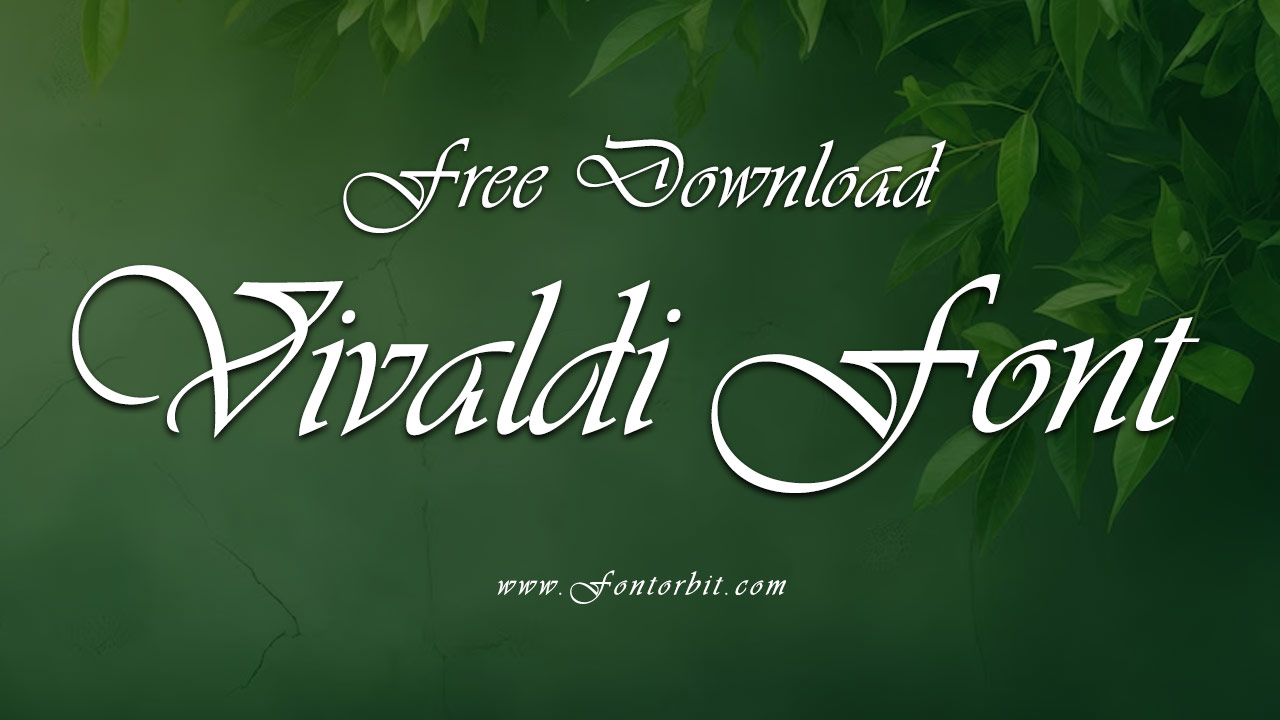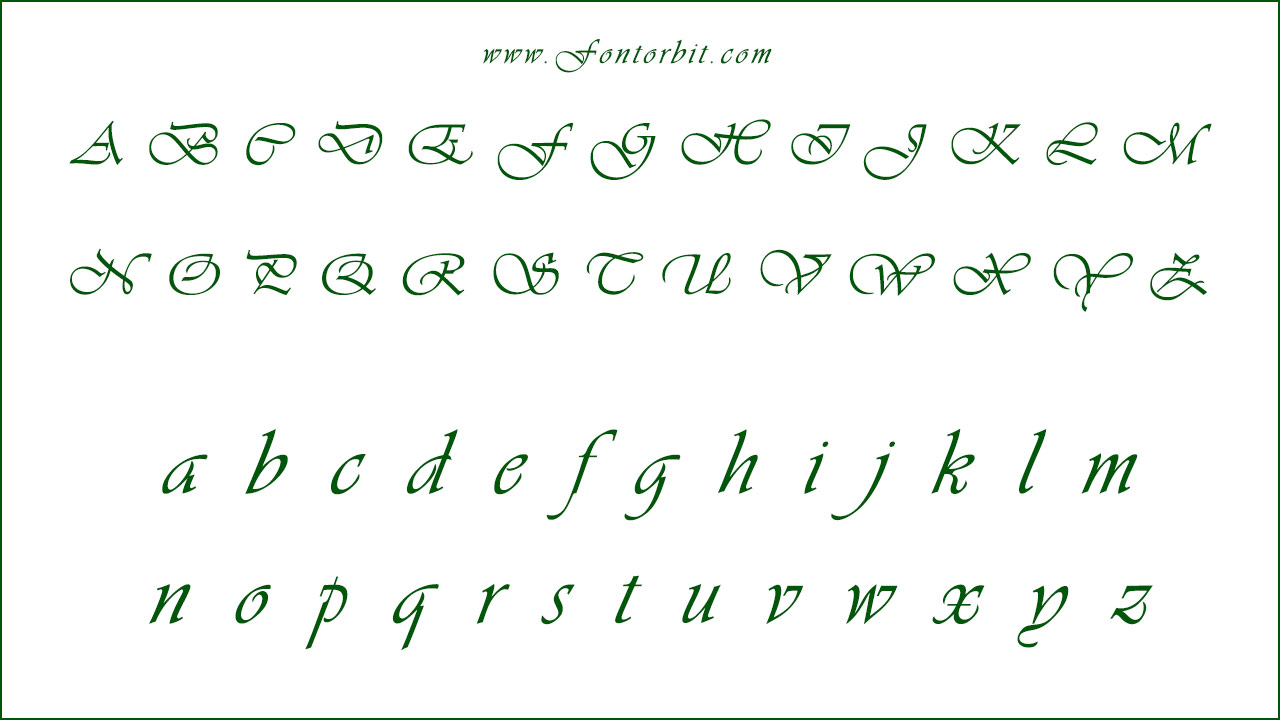
The Vivaldi font is a calligraphic typeface designed by Friedrich Peter and published in 1966. It was published by ITC (International Typeface Corporation) and is known for its elegant, flowing script style reminiscent of classical calligraphy. The font family falls under the category of decorative script fonts.
Vivaldi Font Family Includes
The Vivaldi font family consists of:
a. Vivaldi Italic
Notable Uses Of Vivaldi
- Wedding invitations
- Greeting cards
- High-end branding materials
- Elegant stationery
Vivaldi is ideal for projects requiring a touch of sophistication and elegance, such as:
- Formal invitations
- Elegant packaging designs
- High-quality publications
- Luxury brand identities
The Vivaldi font is a classic choice for adding a touch of elegance to your design projects. With its beautiful, flowing script and versatile applications, it remains a popular choice for formal and decorative uses. Whether you’re designing invitations or luxury branding materials, Vivaldi can help convey sophistication and style.
1.What Is Vivaldi Font?
A calligraphic typeface designed for elegant and formal use.
2.When Was Vivaldi Published?
It was published by ITC in the late 20th century.
5.What Are The Main Styles Of Vivaldi?
Regular, Italic, and Bold.
6.Where Is Vivaldi Commonly Used?
Invitations, greeting cards, and high-end branding.